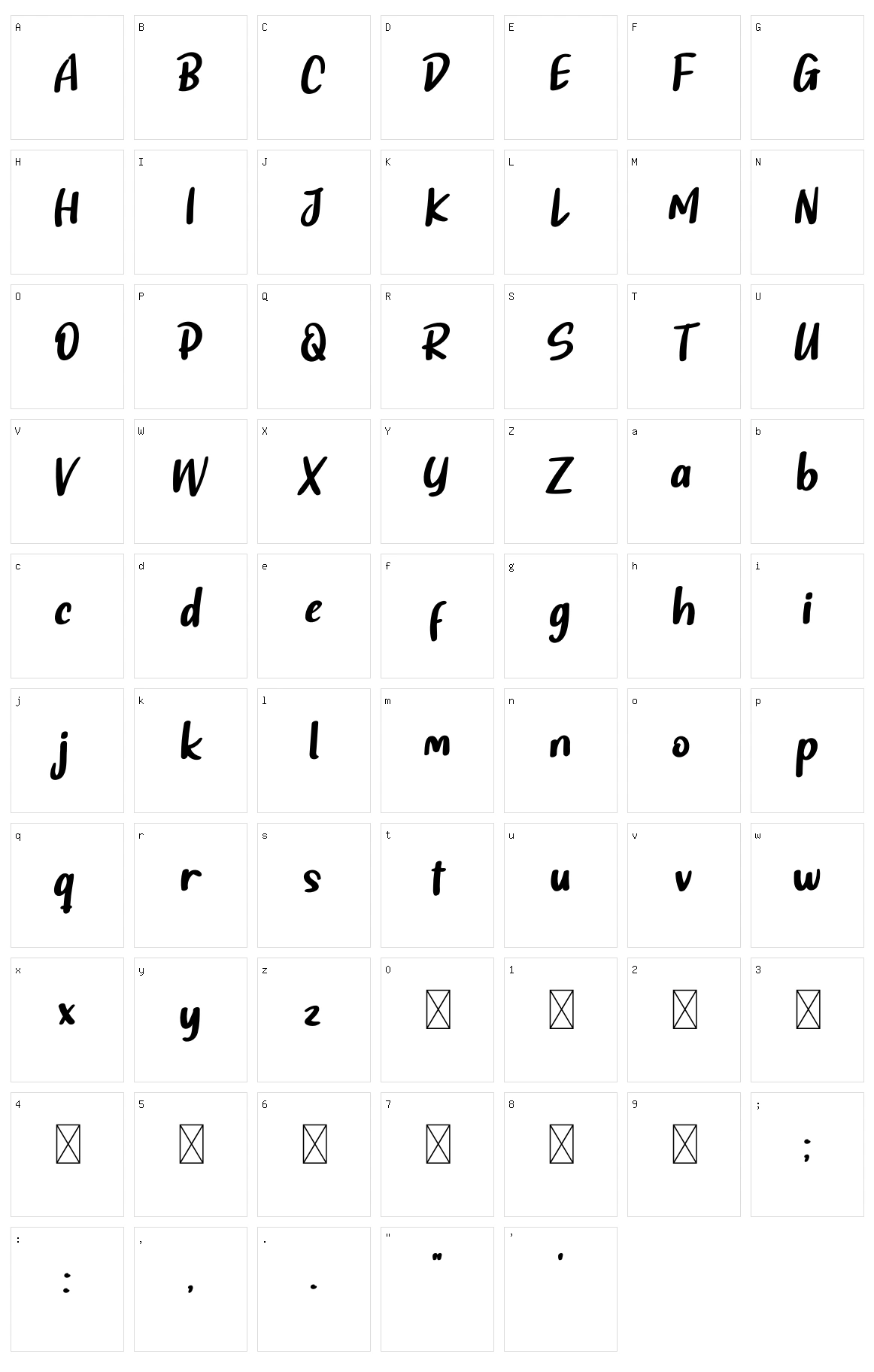
The free font Master Black is carefully designed by productype, showcasing a thoughtful balance of creativity and usability and falls under the Script font style. When you download the ZIP file, it contains only 26.01 KB of font files, making it lightweight and quick to download. Please review the license details below to understand permitted usage and distribution rights. If license information is not available, we recommend using this font for personal projects only or contacting the author directly for commercial usage permissions.